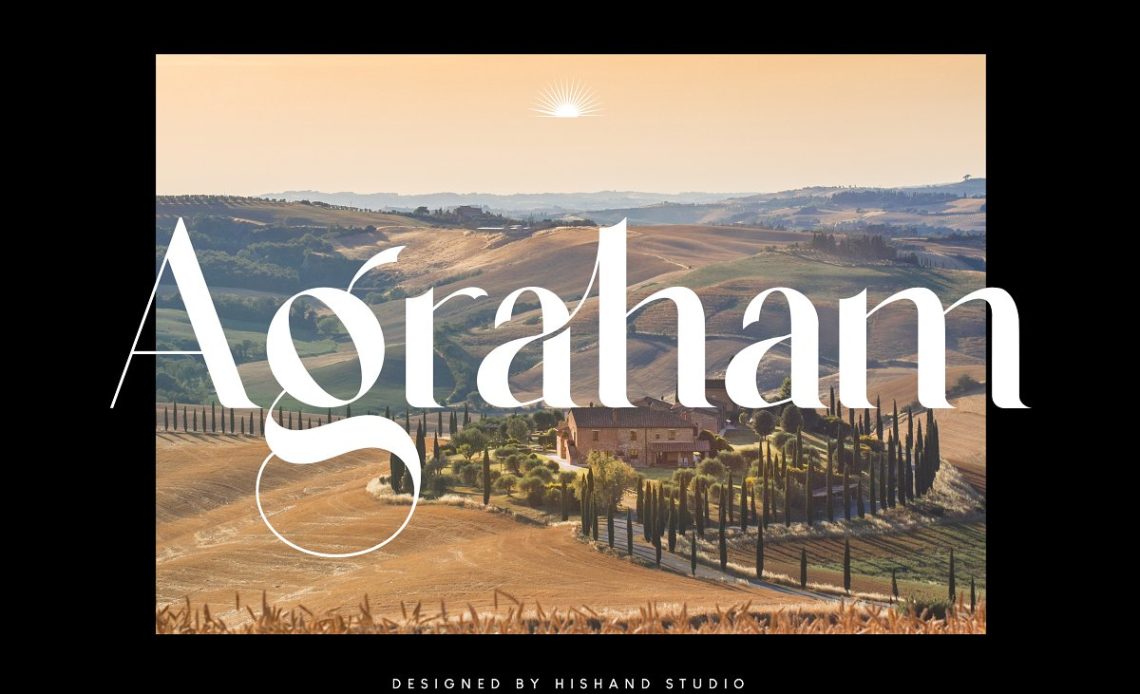
Introducing Agraham Serif Font, the epitome of elegance and sophistication. Created by hishand studio, this remarkable font is the perfect choice for those seeking the best fonts for logo business. With its captivating aesthetic and a touch of Italy's unique vibes blended with the beauty of Paris, France, Agraham Serif Font is bound to leave a lasting impression.
Designed with meticulous attention to detail, Agraham Serif Font is a versatile serif font that is guaranteed to elevate any design project. Its timeless appeal makes it ideal for various purposes, including logo branding, product packaging, advertisements, social media posts, fashion brands, and magazine headers. The possibilities are limitless!
What sets Agraham Serif Font apart is its comprehensive range of features that enhance its versatility even further. The font comes complete with ligatures, providing seamless connections between characters for a truly polished look. Alternates are also included, allowing you to experiment and find the perfect style that resonates with your brand. Whether you prefer the classic regular or the elegant italic, Agraham Serif Font has got you covered.
In addition to its extensive character set, Agraham Serif Font offers an exciting icon collection that adds an extra touch of creativity to your designs. These eye-catching icons are the perfect way to grab attention and make your brand stand out from the crowd. With Agraham Serif Font's impeccable kerning, every character is perfectly spaced, ensuring a harmonious and visually appealing result.
One of the key strengths of Agraham Serif Font is its exceptional multilingual support. No matter what language you need to communicate in, this font has you covered. From English to French, Italian to Spanish, Agraham Serif Font ensures that your message reaches a global audience without any barriers.
Embrace the power of Agraham Serif Font and unlock a world of endless possibilities. Its timeless elegance, versatility, and captivating beauty make it the ultimate choice for any design project. Elevate your branding, captivate your audience, and leave a lasting impression with Agraham Serif Font.